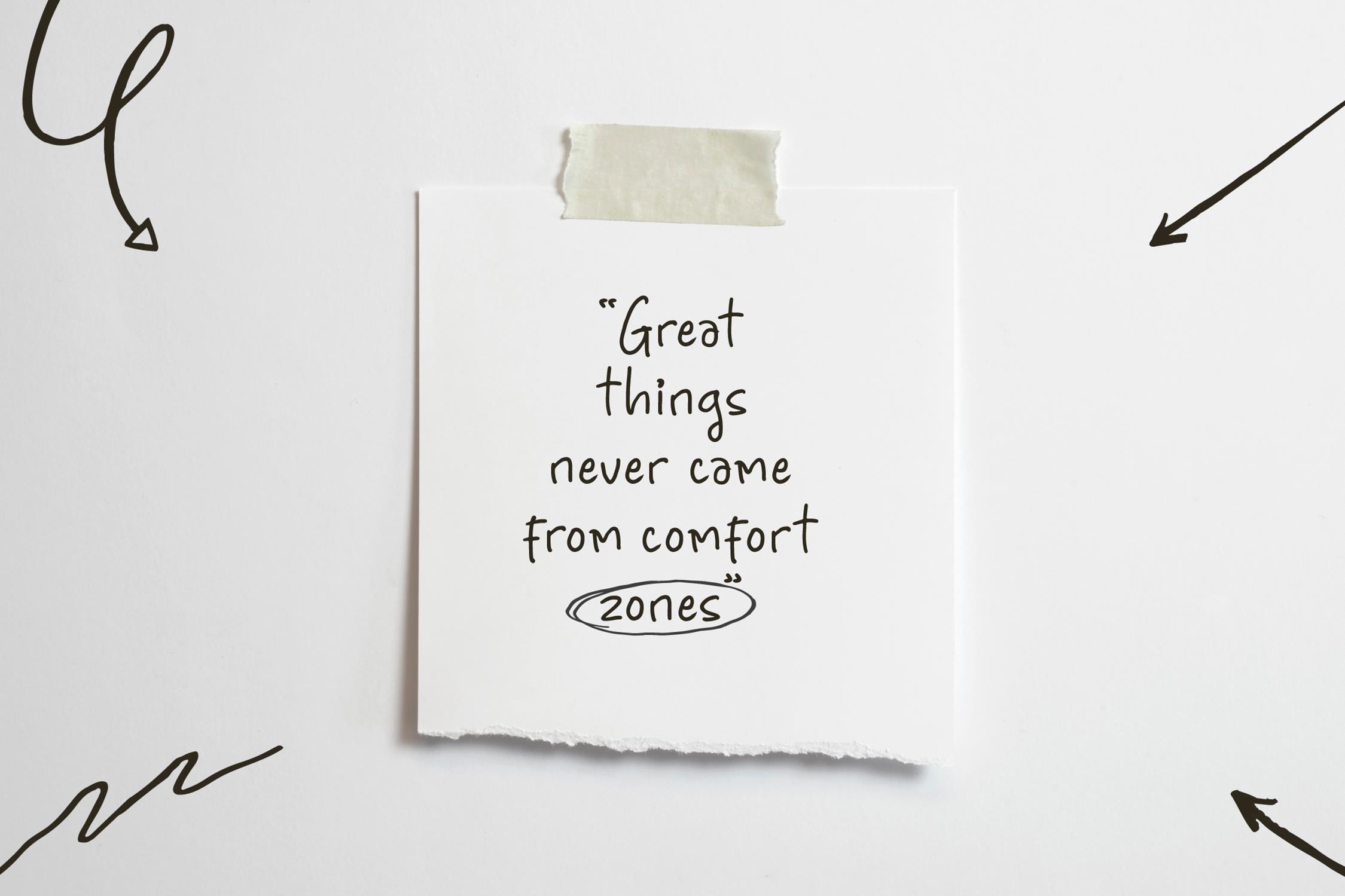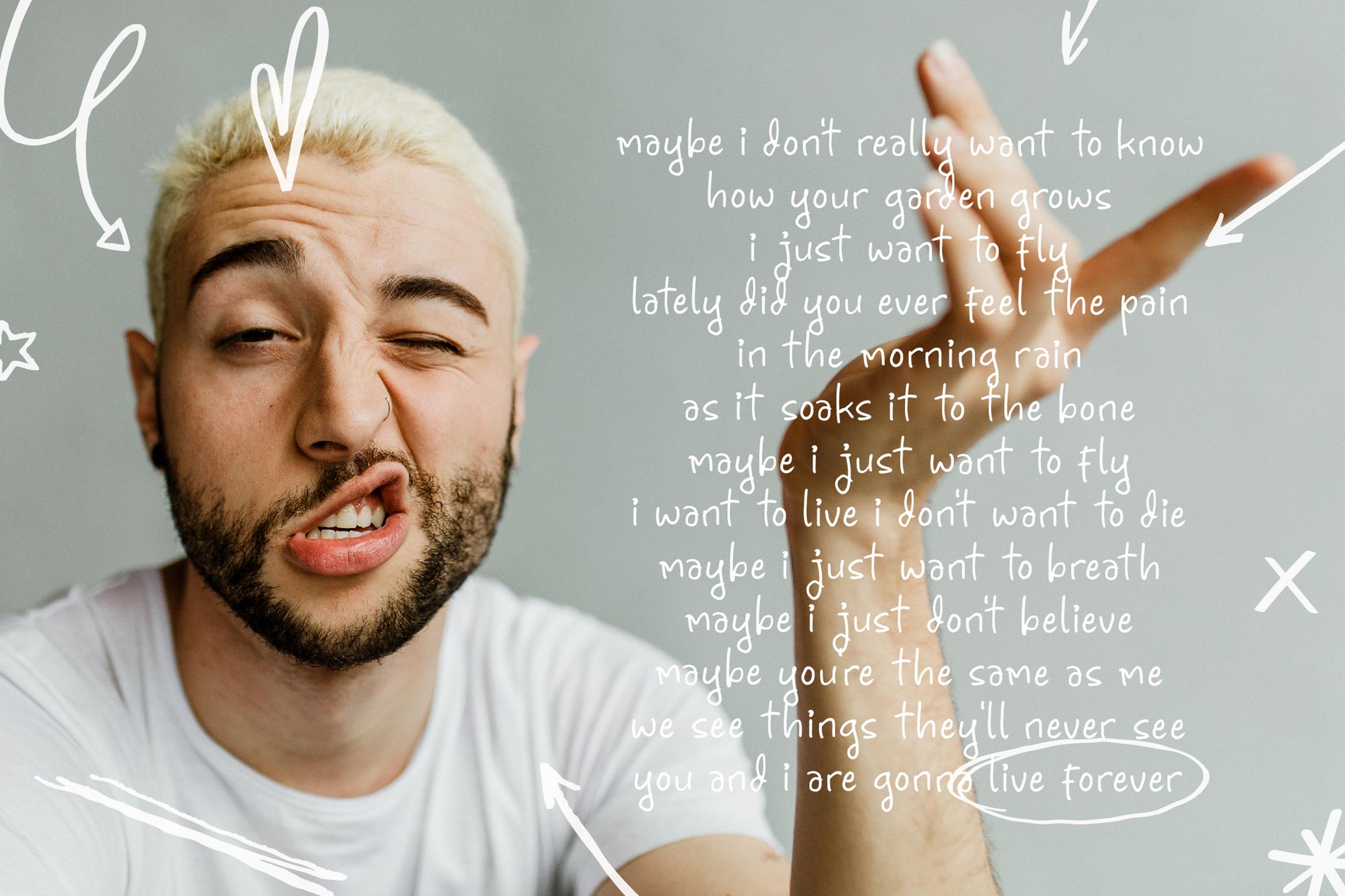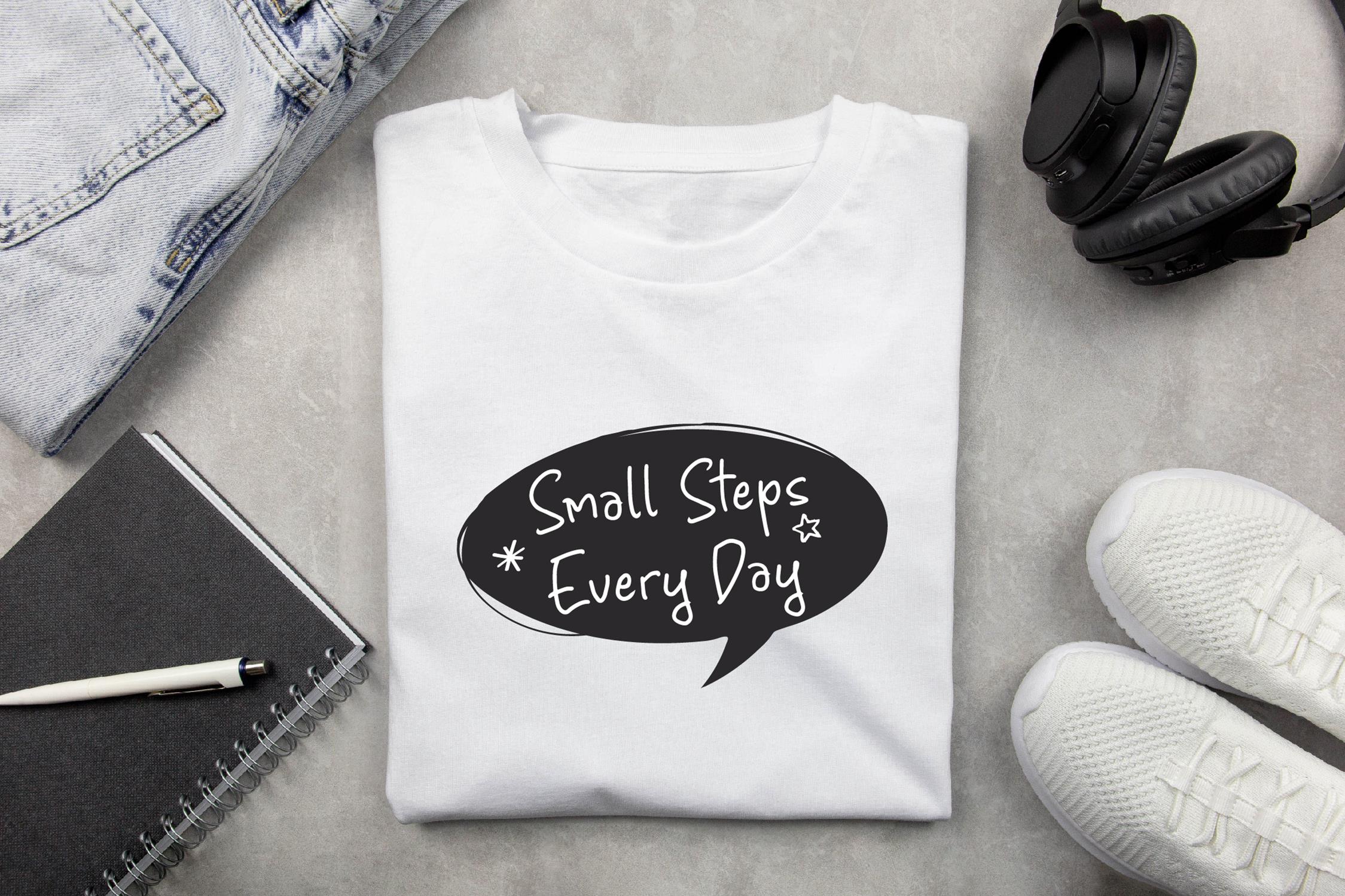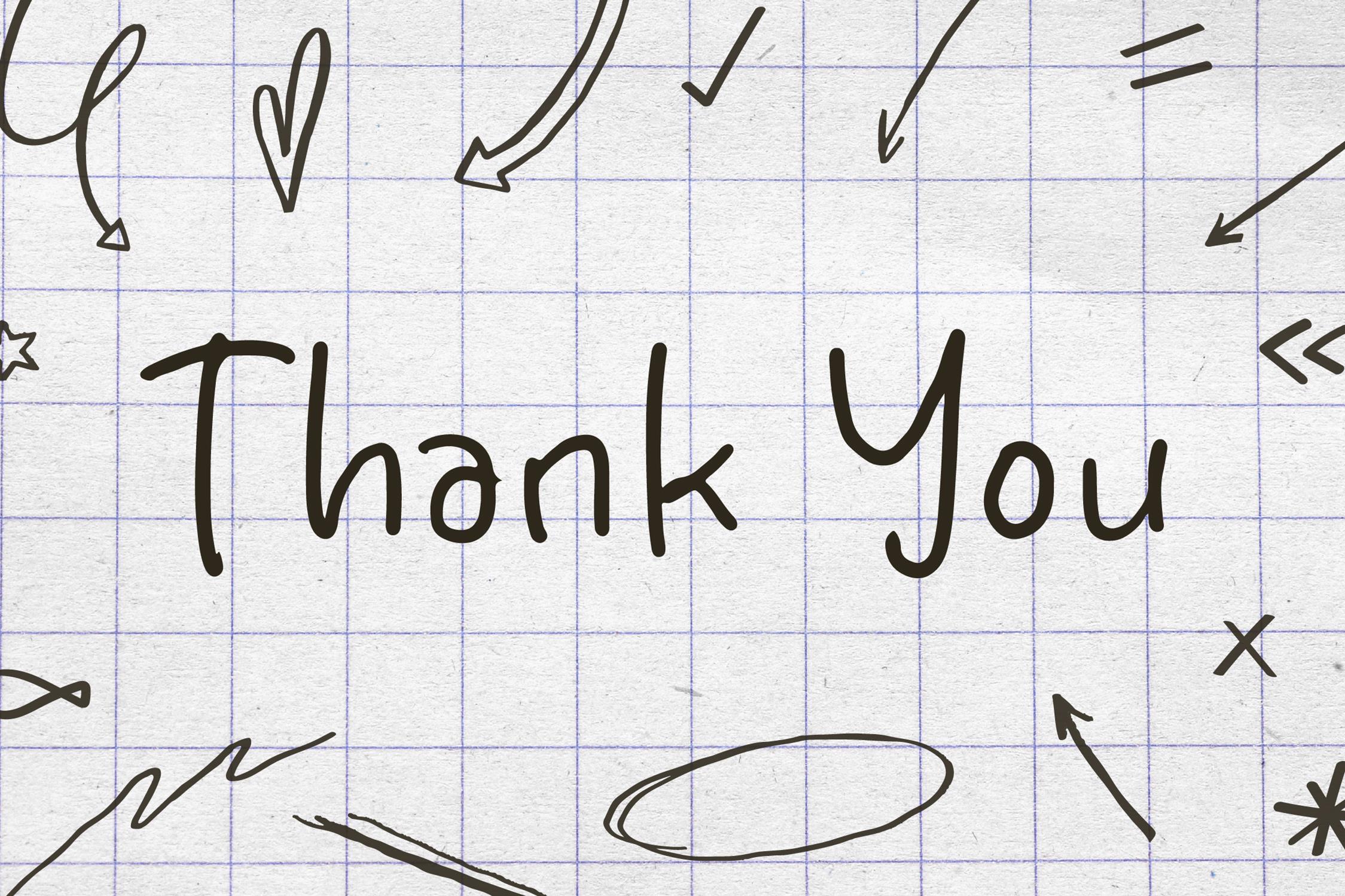
Guide Notes Font
Guide Notes Handwritten Font
It’s a Natural Handwritten Font, suitable for any projects such as: logos, branding projects, homeware designs, product packaging, mugs, quotes, posters, shopping bags, t-shirts, book covers, name card, invitation cards, greeting cards, label, photography, watermark, special events, and all your other lovely projects that need a beautiful script taste.